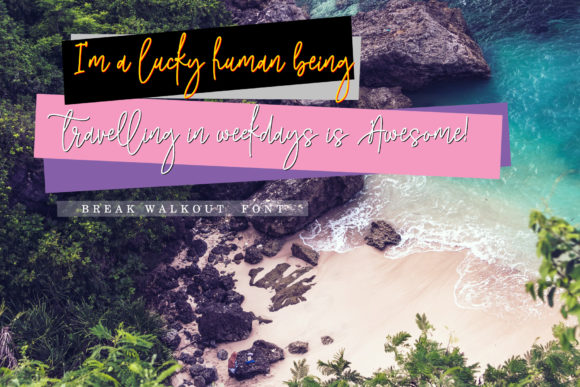
Break Walkout Font
db-ku.com - Script & Handwritten -- Break Walkout is a simple, yet classy signature typeface. It includes beautiful swashes that will add an organic feel to any design project!